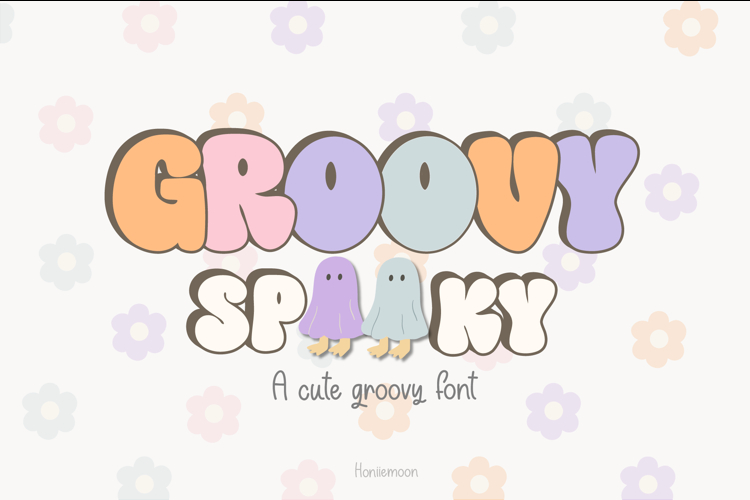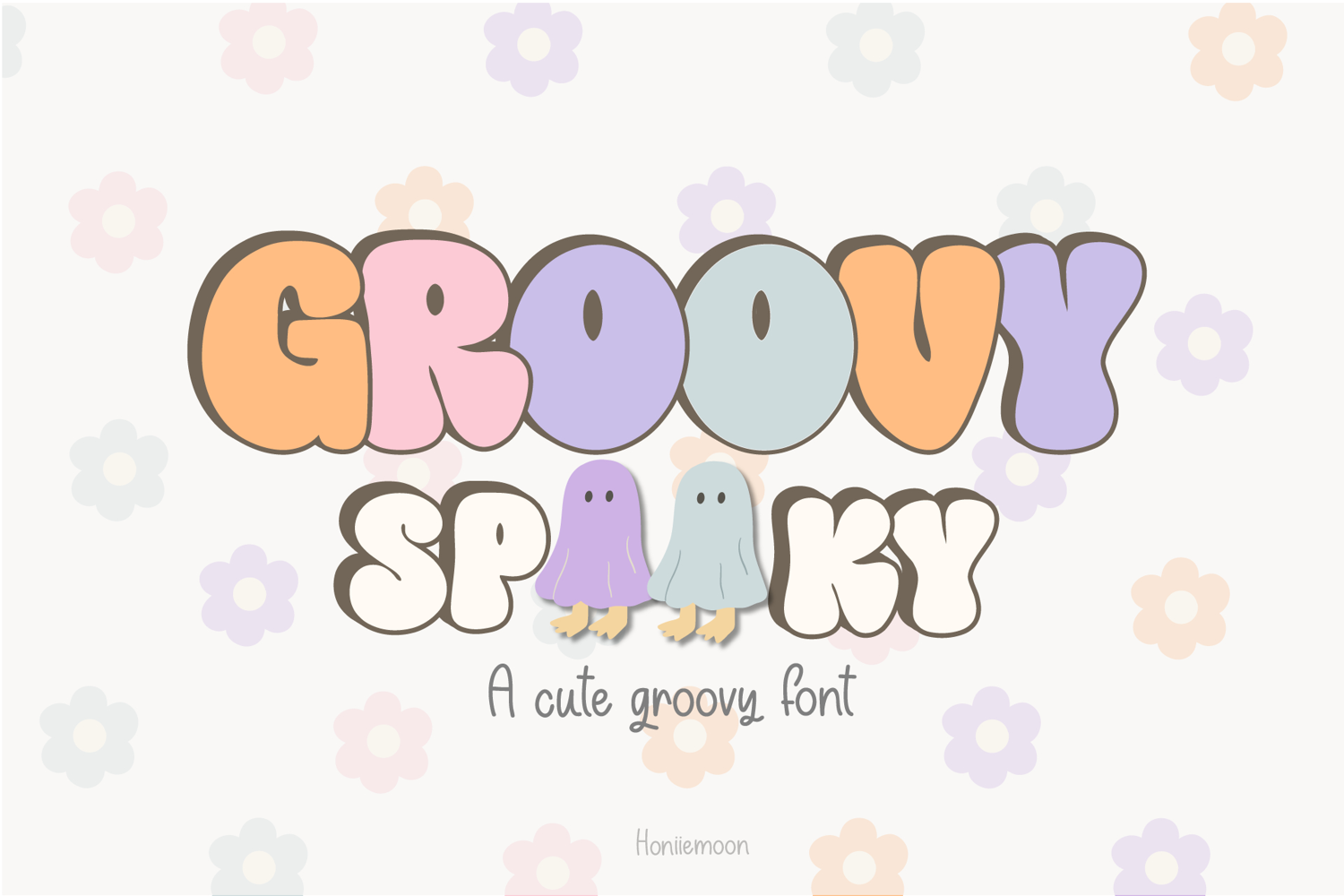
Groovy Spooky is a fun display font, perfect for your favorite projects such as posters, flyers, social media, movie and book titles, invitations, stickers t-shirts, logos, advertisements, clothing, and so much more.